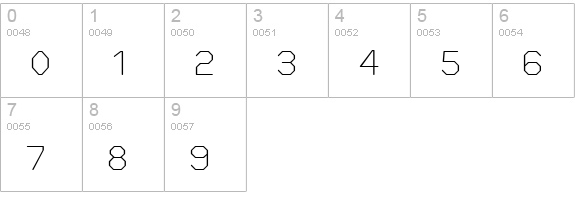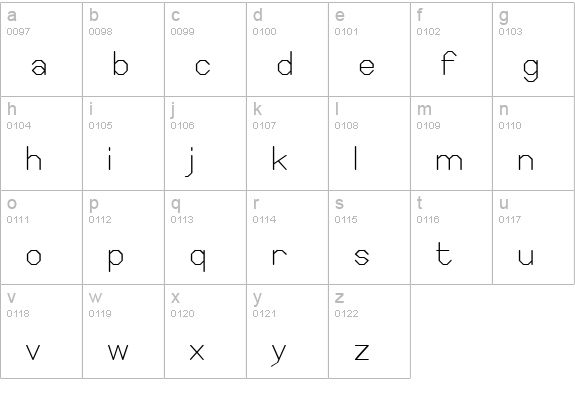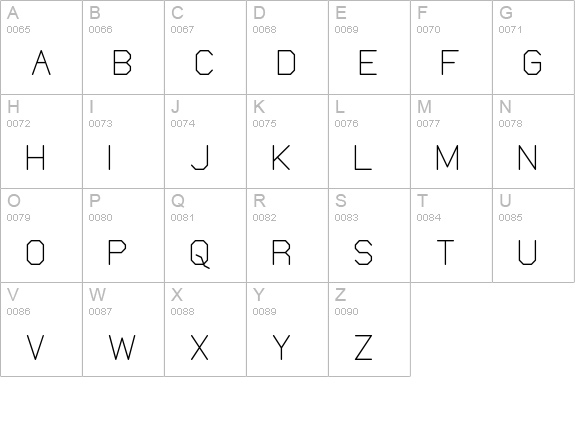
Elgethy Square Font Details
Elgethy Square is a modern and versatile typeface that exudes a sense of sophistication and elegance. This font features clean lines and sharp angles, making it perfect for creating eye-catching designs with a contemporary edge. Whether you're working on a branding project, editorial design, or web graphics, Elgethy Square will add a touch of style and professionalism to your work. The best part? Elgethy Square is completely free to download at FontsMarket.com. This means you can elevate your designs without breaking the bank. Don't miss out on the opportunity to add this stunning font to your collection today and unleash your creativity with its endless possibilities.